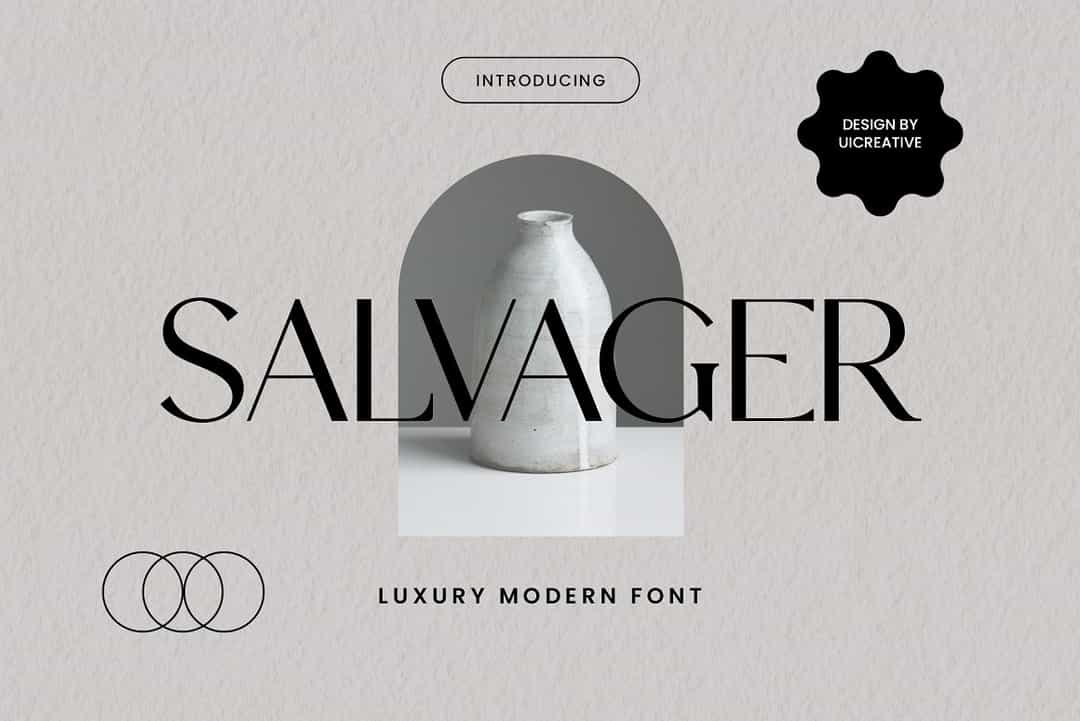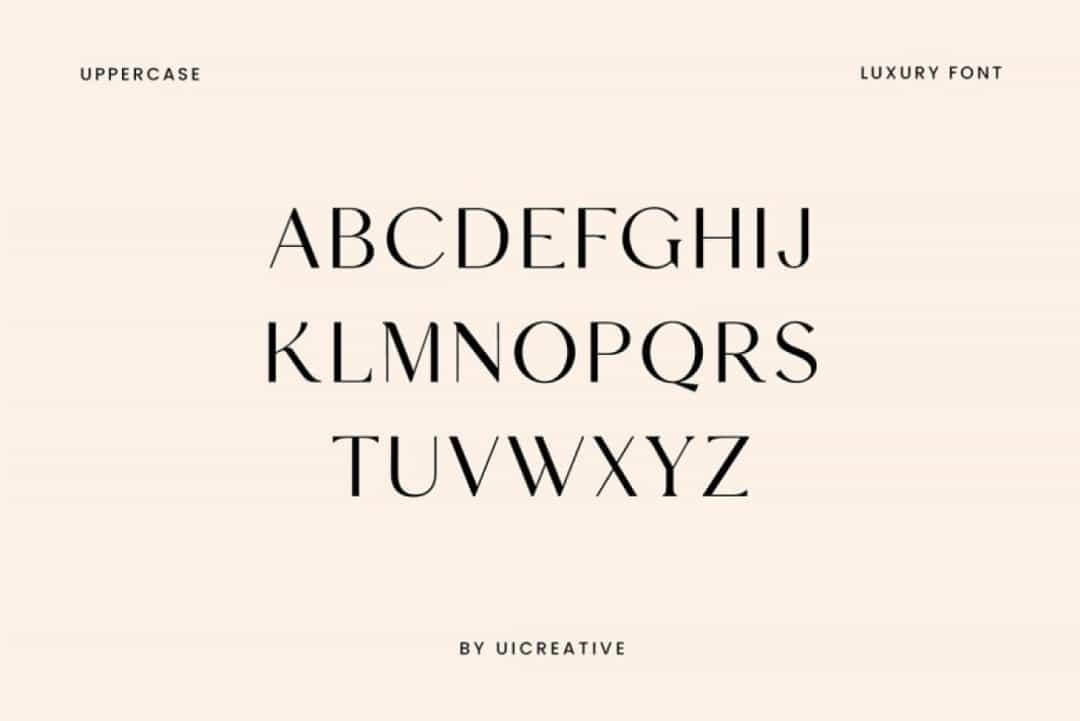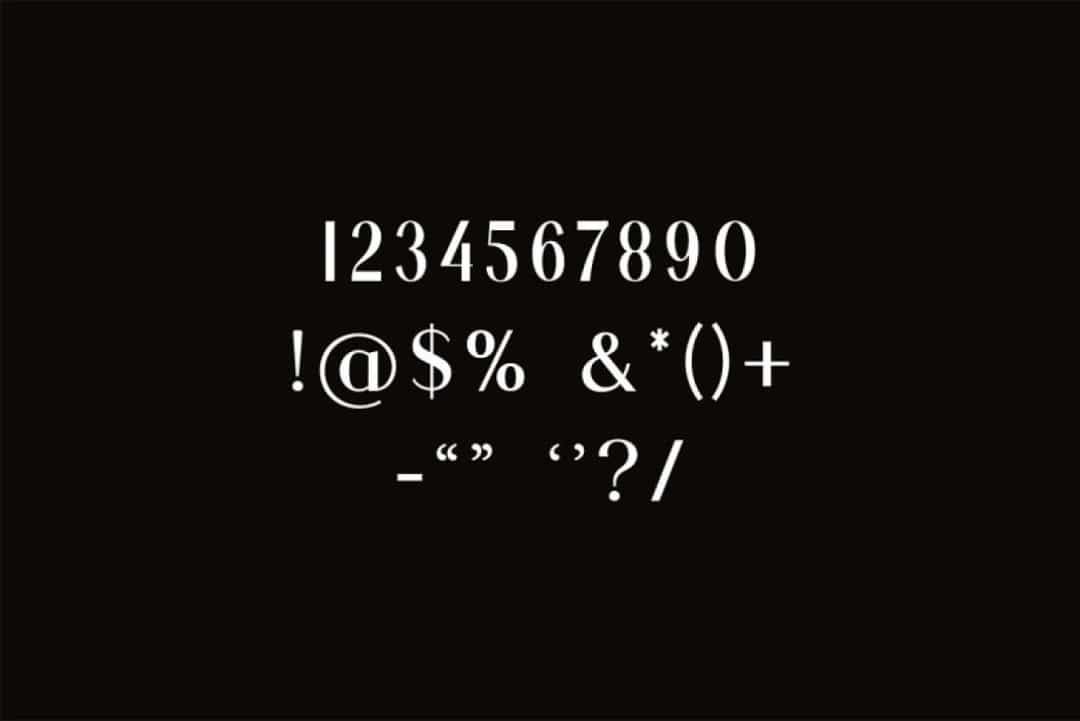
Salvager is an elegant modern serif typeface with contemporary flair that is suitable for many designs, from stationary and signatures to logos wedding, typography quote books or magazine covers, headers for websites and clothing branding packaging design and much more.